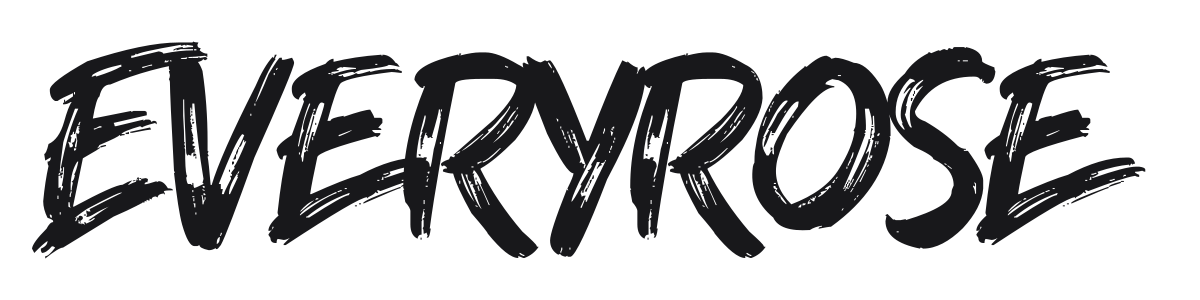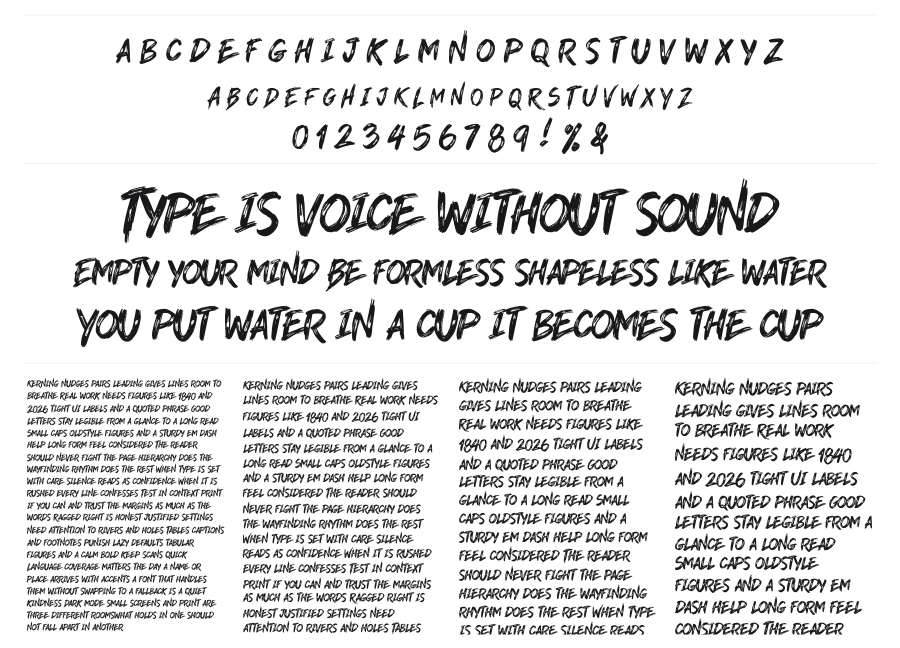
Everyrose
Everyrose is a bold, rough-edged brush script with heavy ink texture and a fast, forward-leaning slant. The bristle drag and uneven stroke edges give it genuine hand-painted character, sitting somewhere between street art marker and expressive calligraphy. It carries energy well at large sizes, from movie title treatments to tropical lifestyle branding.